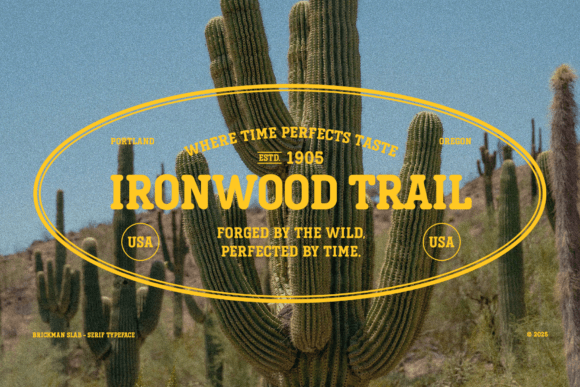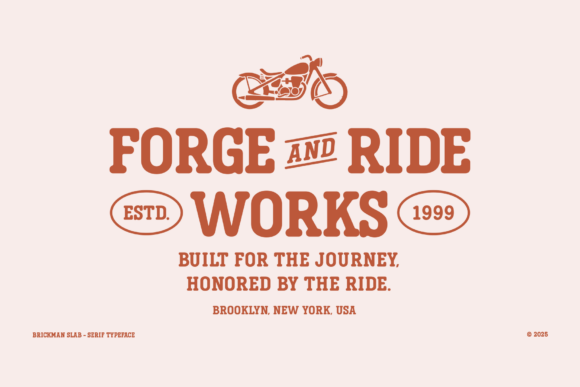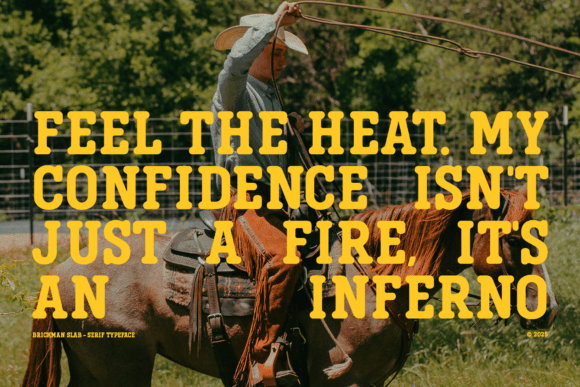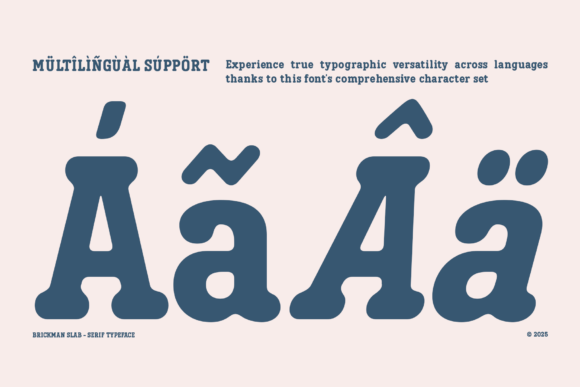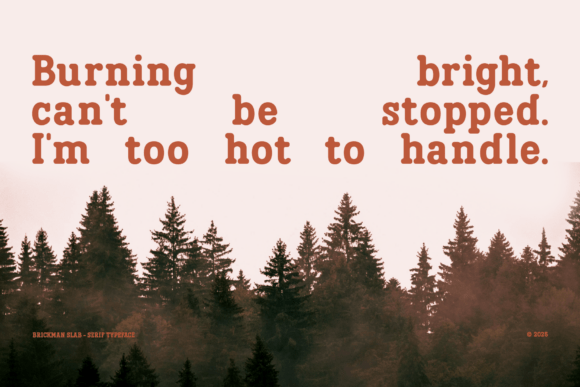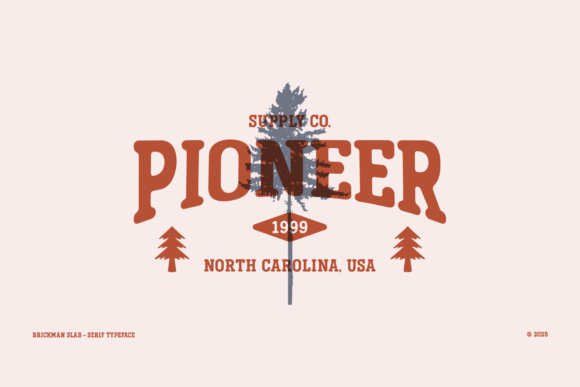
Introduction to Itbrickman Regular Font
Brickman is a bold slab serif display typeface that radiates strength, confidence, and timeless vintage charm.
With its sturdy letterforms, solid proportions, and subtly rounded terminals that add a friendly touch, Brickman blends classic heritage with a fresh contemporary feel Inspired by old Wild West advertisements, vintage storefront signage, and circus posters, this font brings an authentic warmth and nostalgic personality to any project.
Key Features of Itbrickman Regular Font